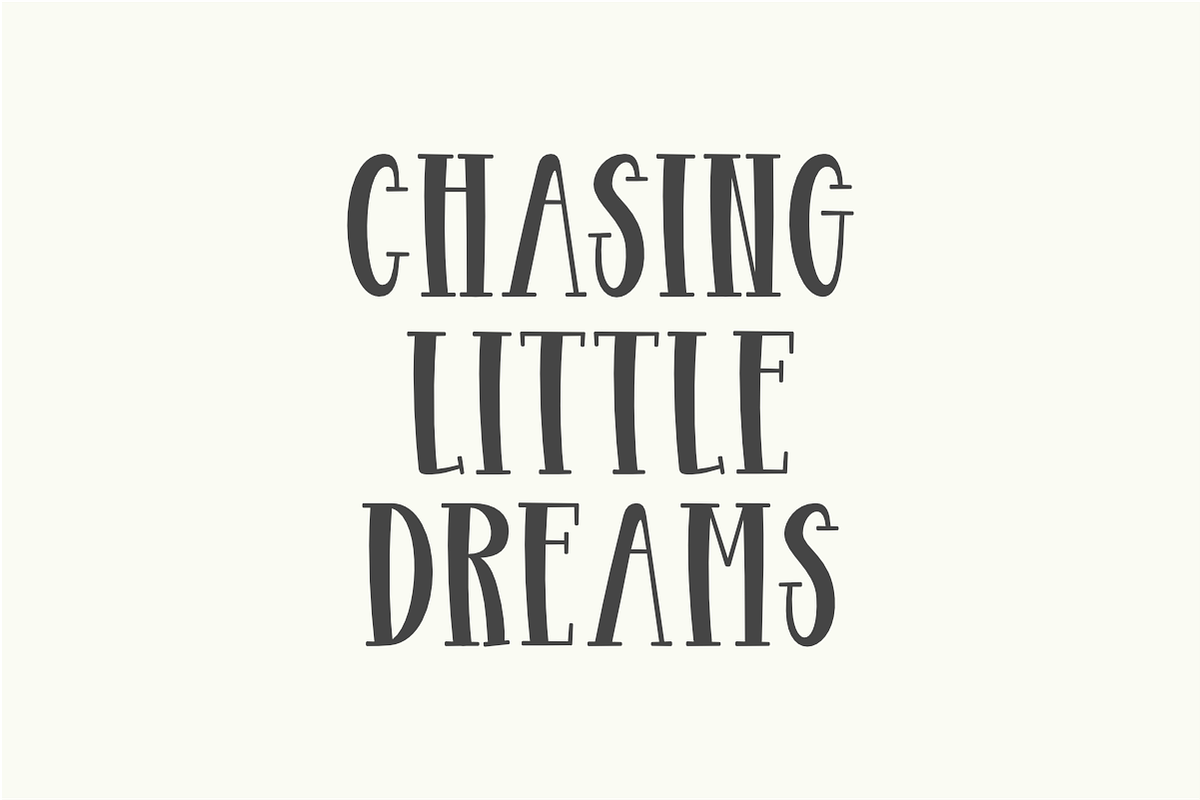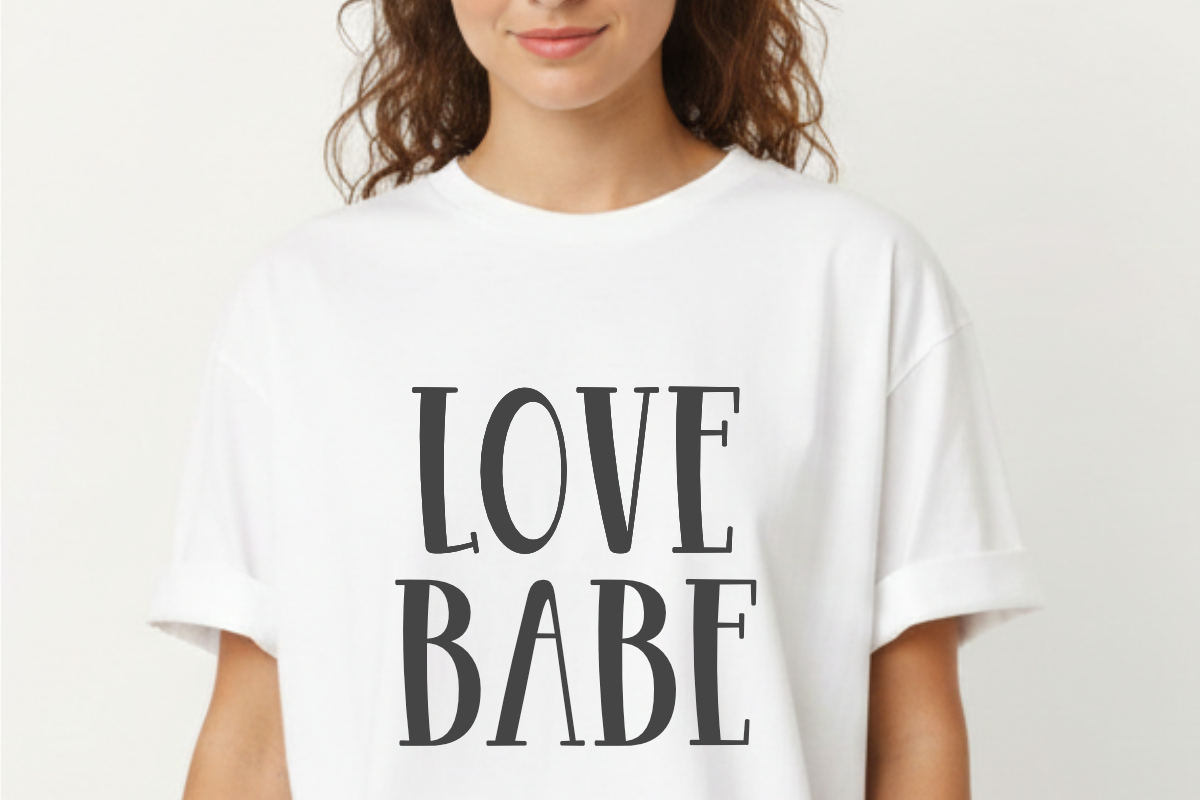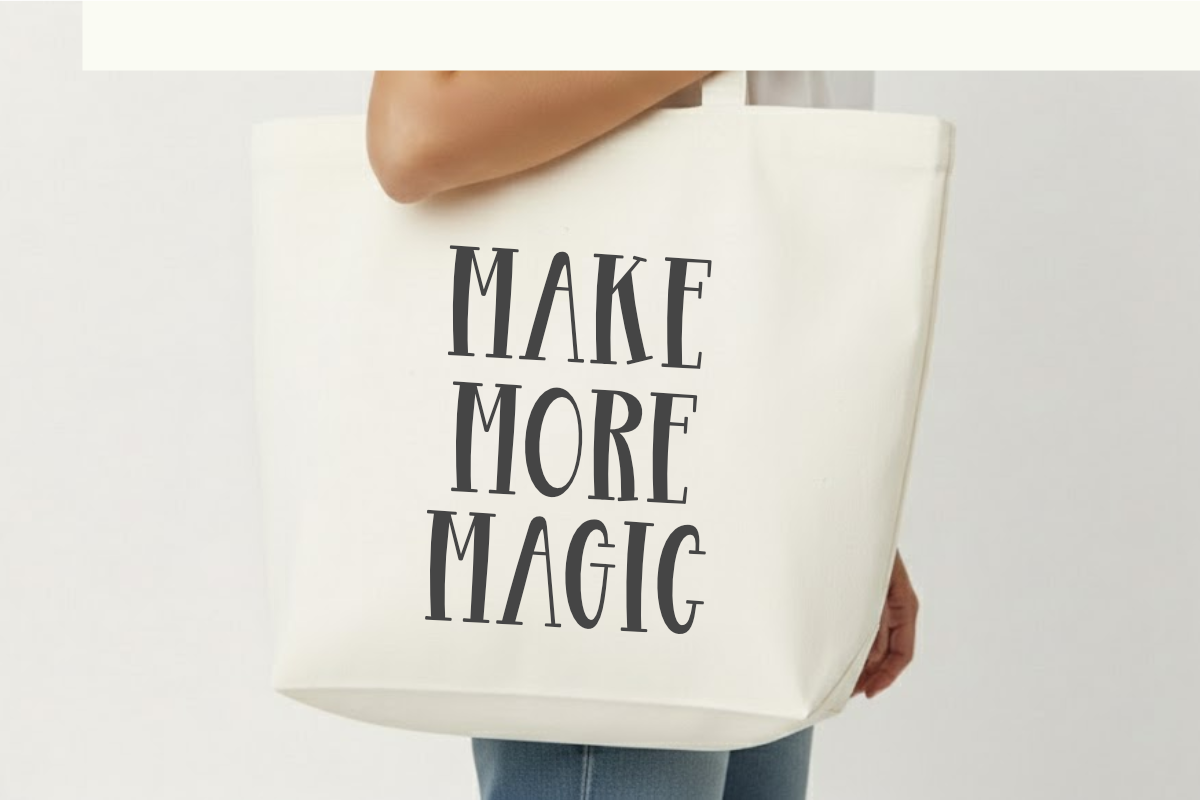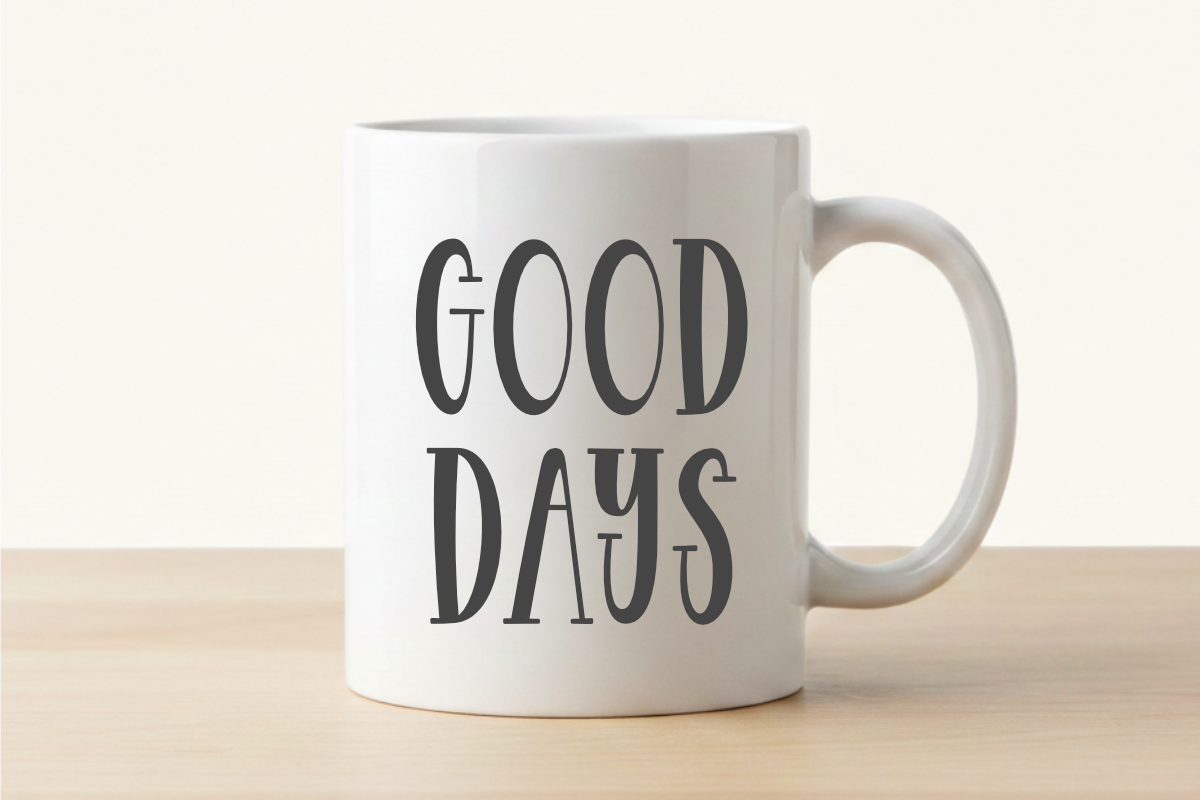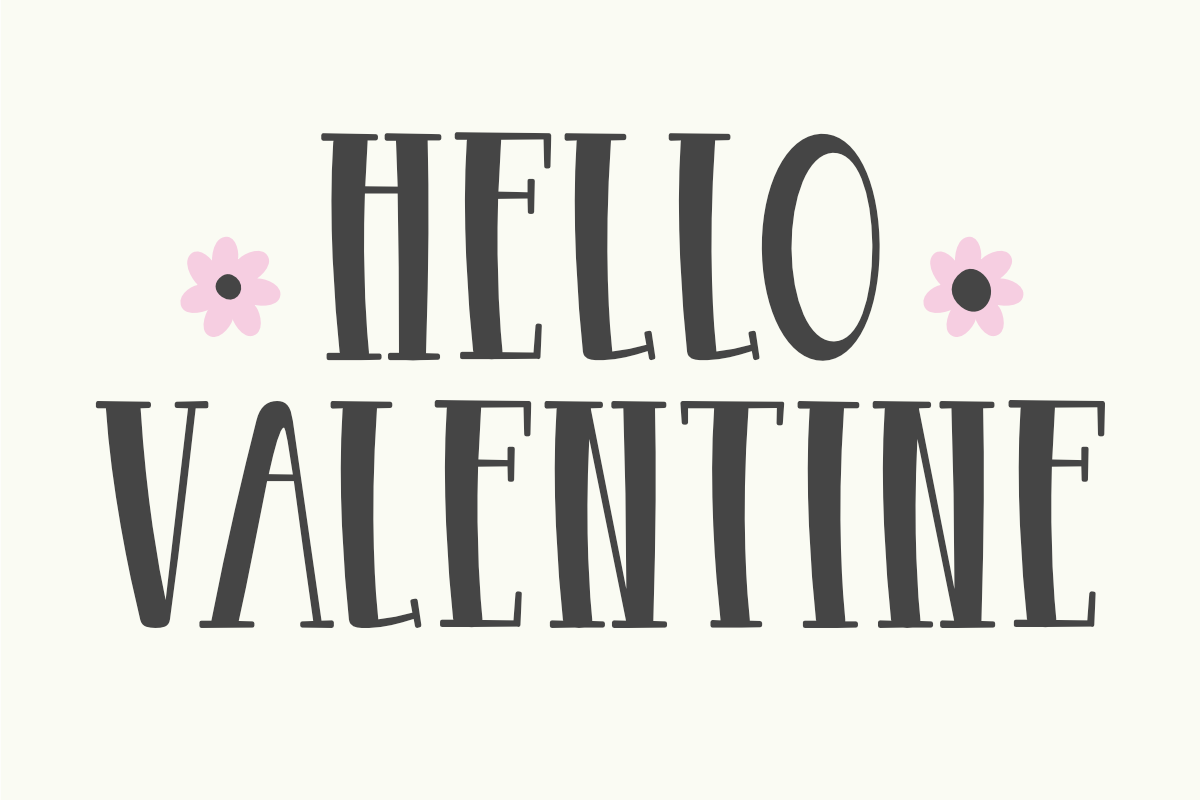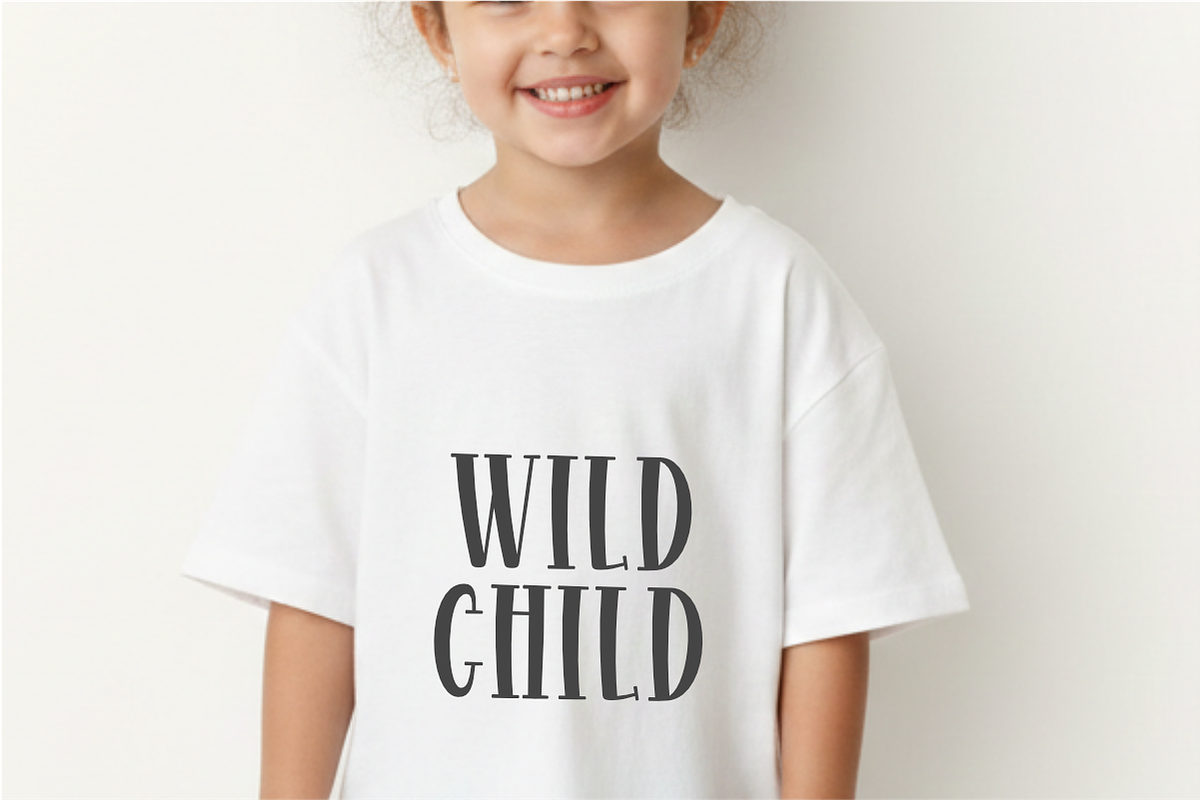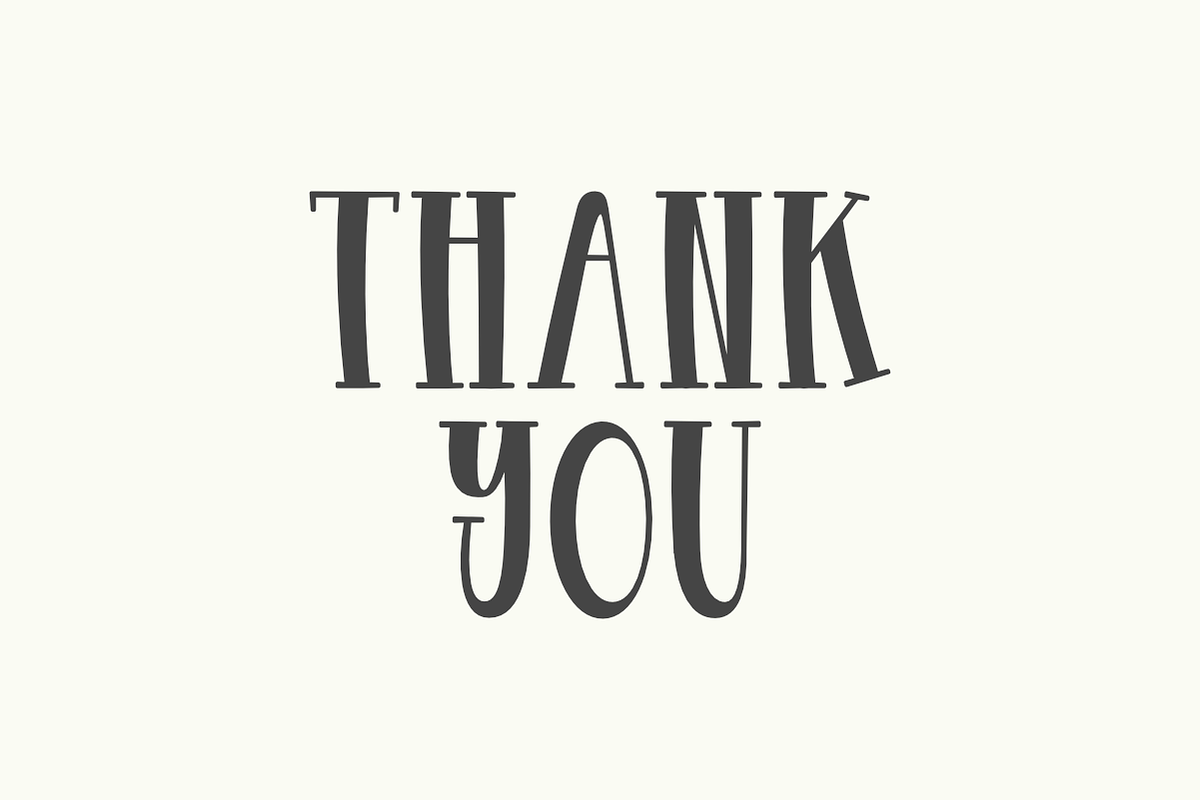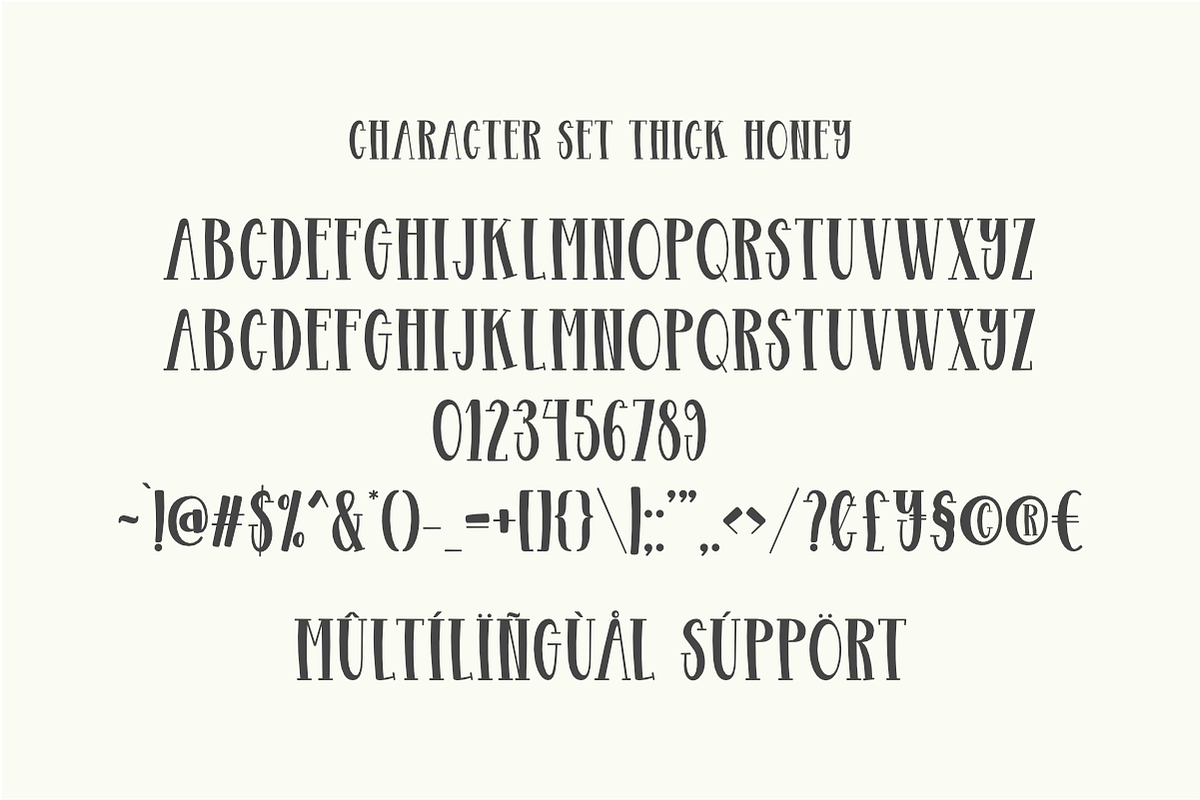
Thick Honey - Quirky Handwritten
Thick Honey is a delightful quirky handwritten font designed to bring a unique and playful personality to your creative work. This tall display typeface features a charming, hand-drawn aesthetic with slim yet irregular letterforms, making it an ideal choice for creative branding, kids' book covers, school posters, and cheerful social media graphics. Its organic and friendly feel ensures your headlines stand out with a warm, handcrafted touch. Whether you are designing for cute stickers, nursery decor, or whimsical greeting cards, Thick Honey adds a lovely and creative energy to every project.